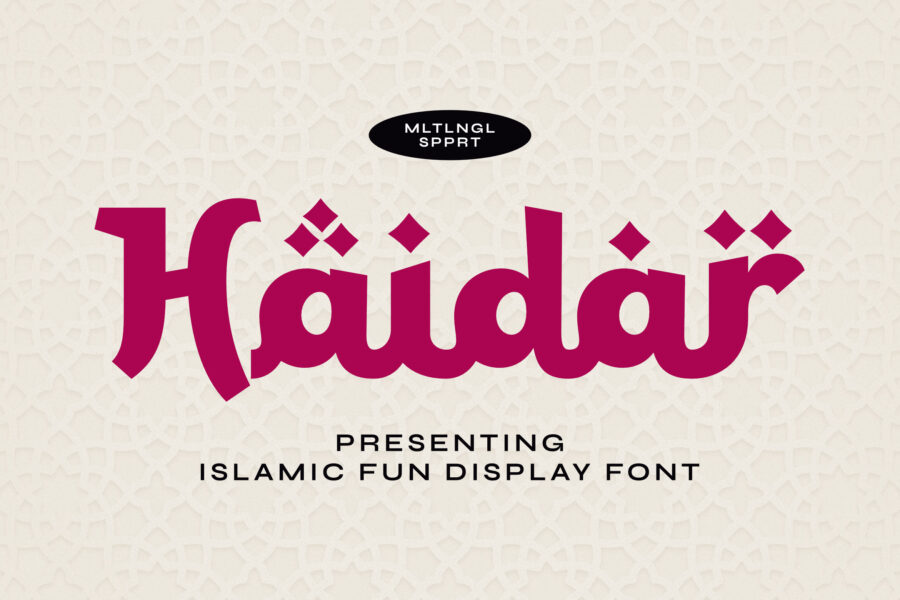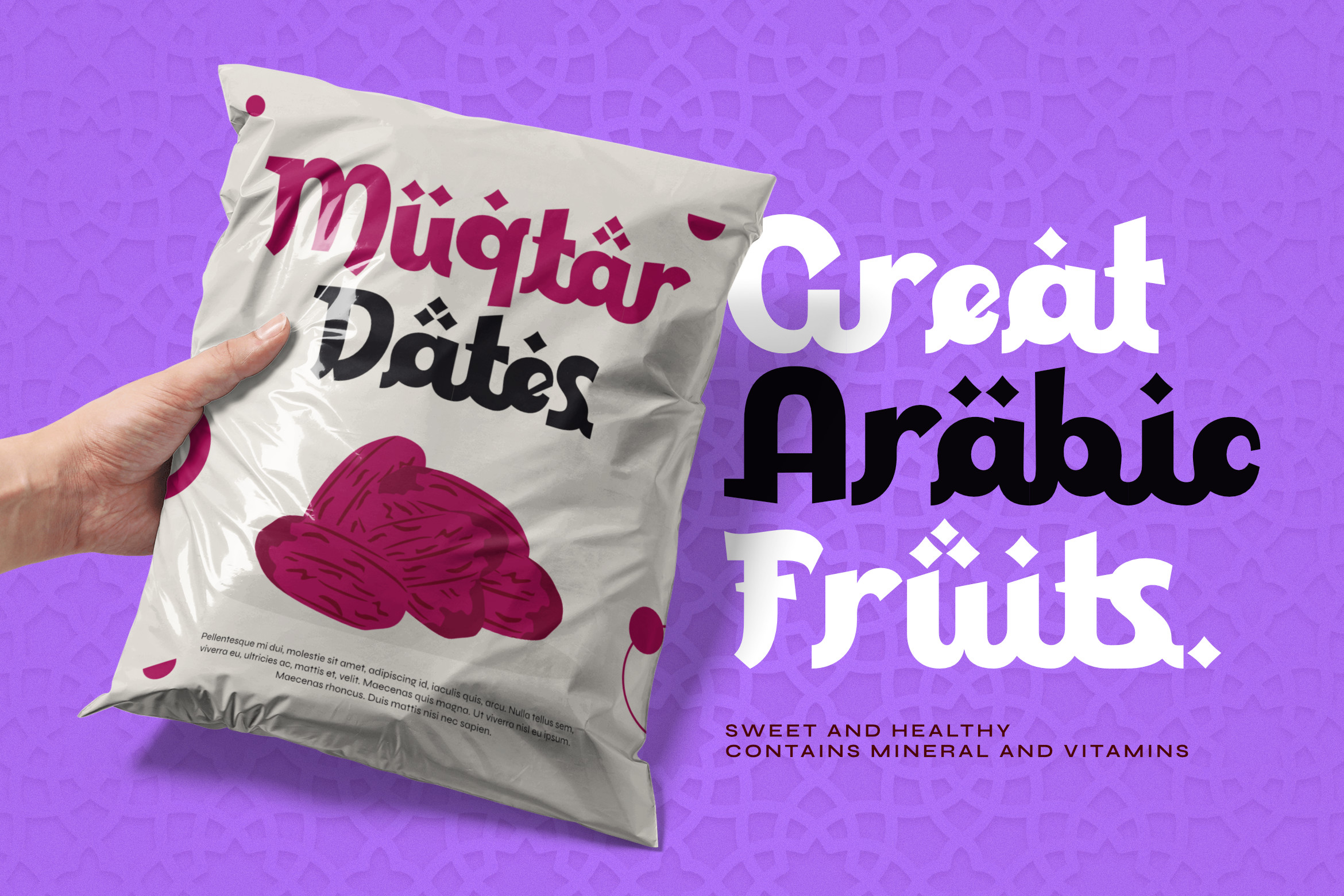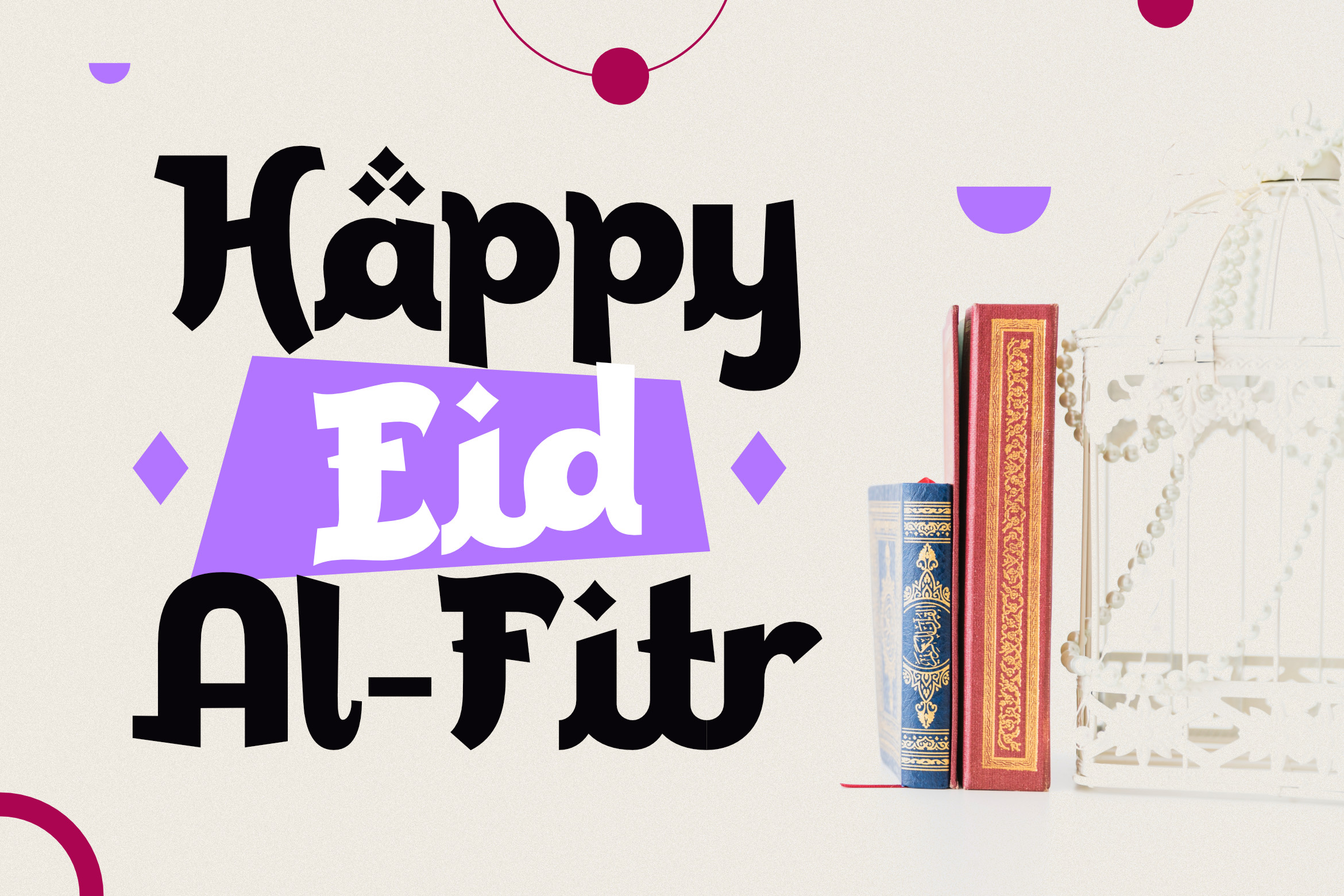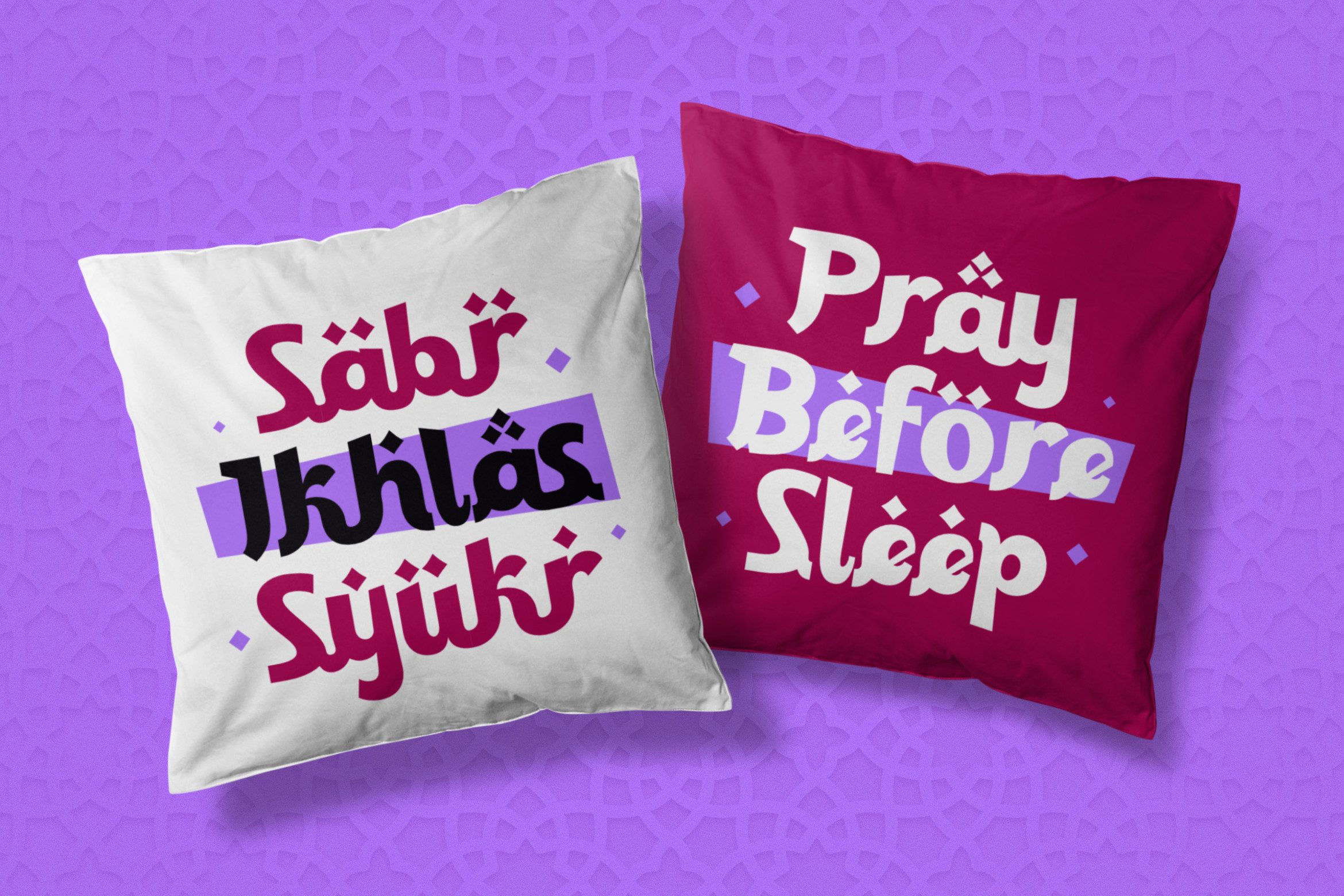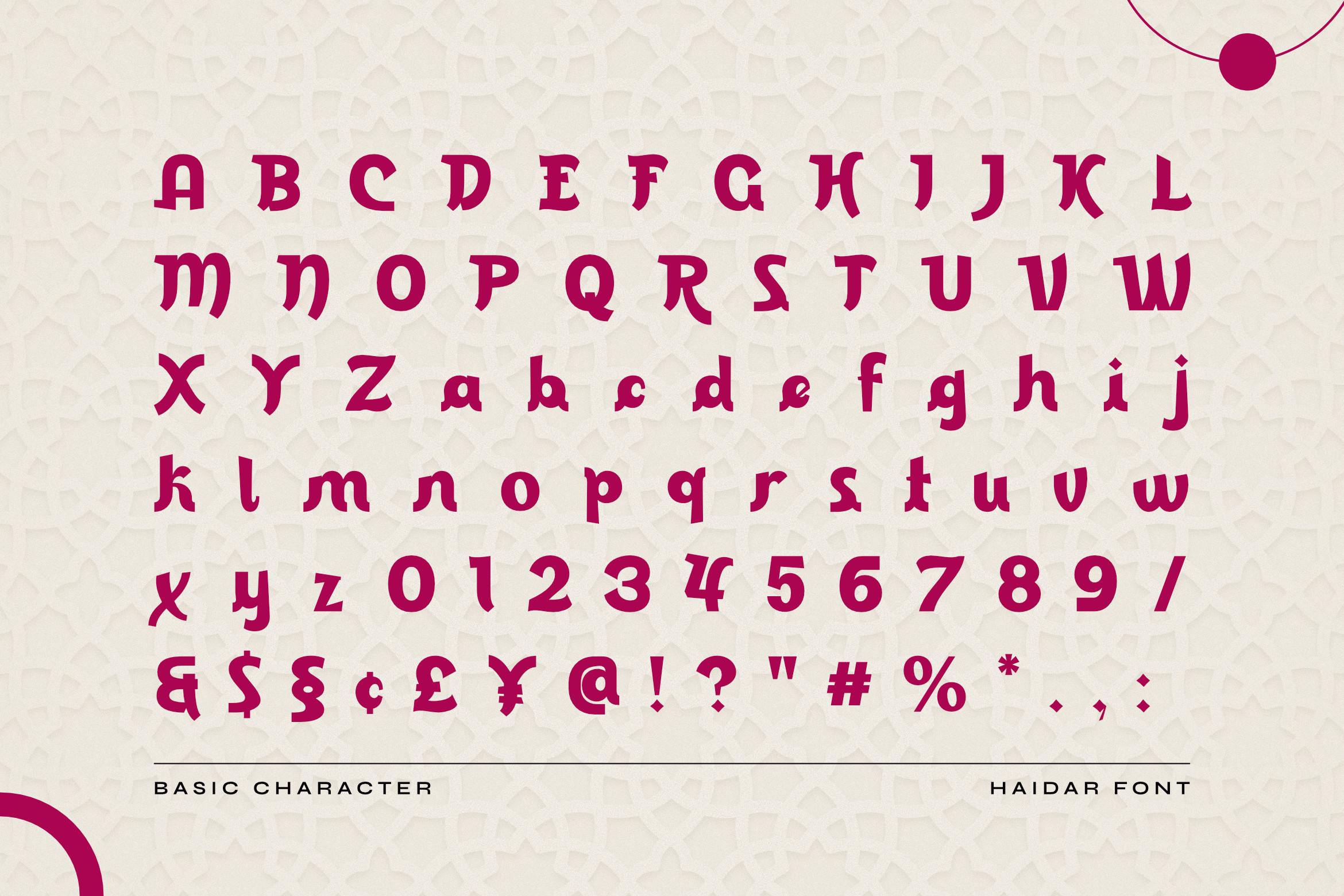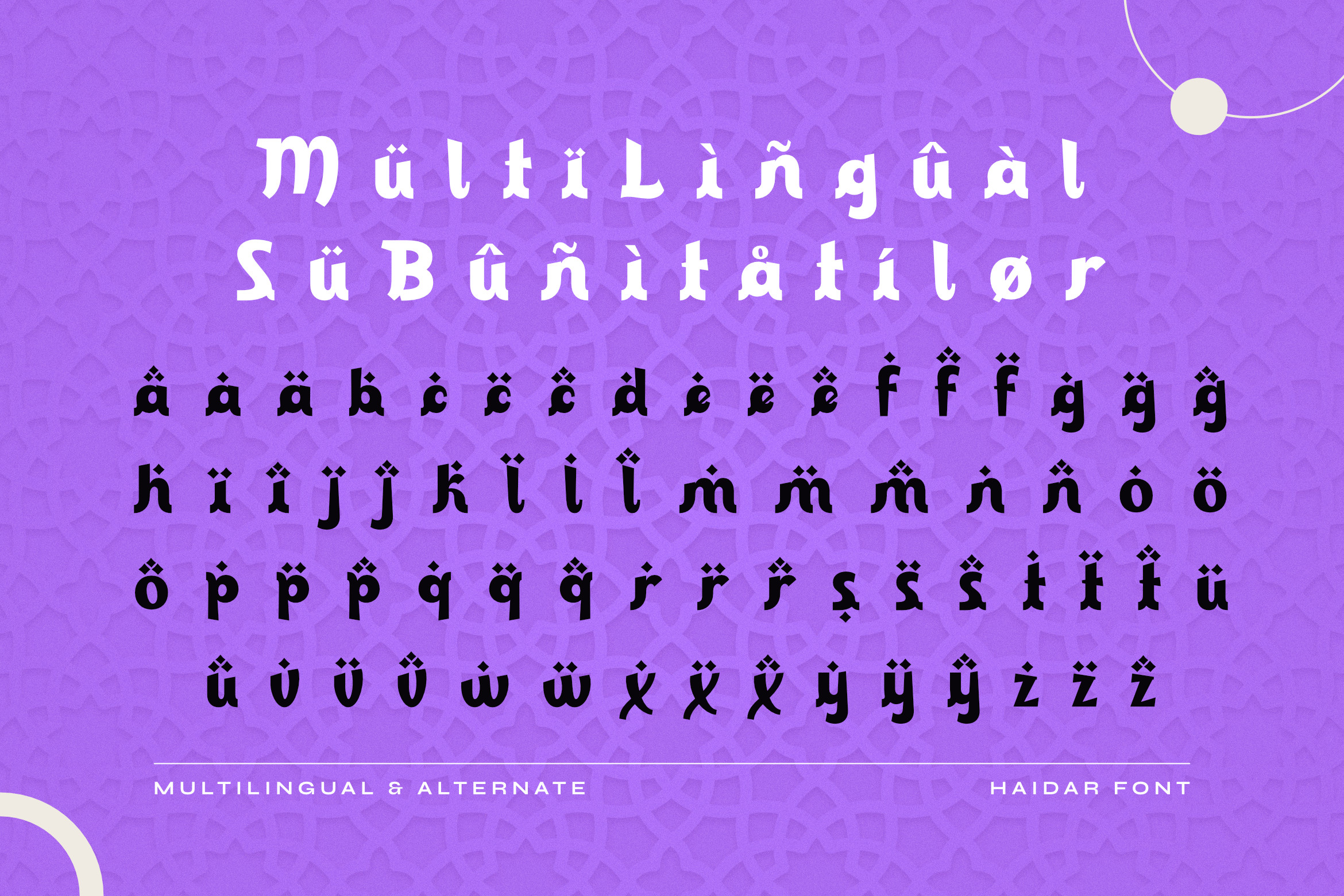
Haidar is a playful Islamic display font that blends bold forms with ornamental diacritics inspired by Arabic calligraphy. Its strong curves and quirky personality make it ideal for festive and joyful themes such as Eid greetings, children’s Islamic books, halal food branding, and religious educational materials. With a touch of fun, it brings modern energy into traditional typography.
This font supports multilingual characters and comes with a complete set of alternates and symbols, allowing full customization for expressive designs. Whether used on packaging, apparel, or digital media, Haidar adds a vibrant and youthful charm to your message while staying rooted in Islamic visual identity.
Haidar